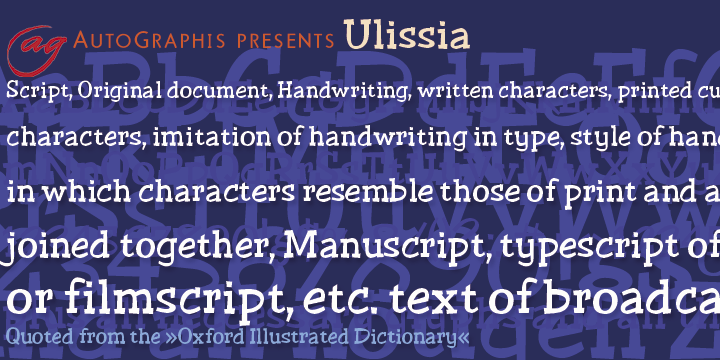
Ulissia
Font Family by Autographis
Ulissia is a hand-drawn slab serif typeface with a strong character. It reminds me of the 50s, 60s and the film noir period or of old Wild West movies.